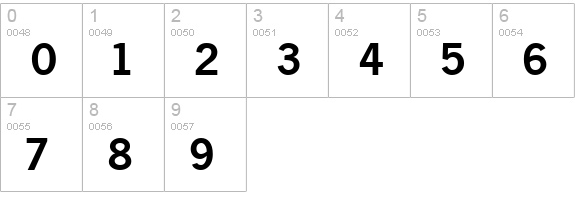
News Bold Font Details
News Bold is a strong, high-contrast variant in the News typeface family \xE2\x80\x94 well suited to headlines, attention-grabbing titles, and strong calls-to-action.
Introducing News Bold font, a sleek and modern typeface designed to make headlines pop and grab attention. With its strong and bold letterforms, News Bold is perfect for conveying important information in a clear and impactful way. This versatile font can be used for a wide range of design projects, from newspapers and magazines to websites and advertisements. The best part? News Bold is completely free to download at FontsMarket.com. That's right, you can enhance your designs with this eye-catching font without spending a dime. Don't miss out on this fantastic opportunity to elevate your typography game with News Bold. Download it today and see the difference it can make in your projects!